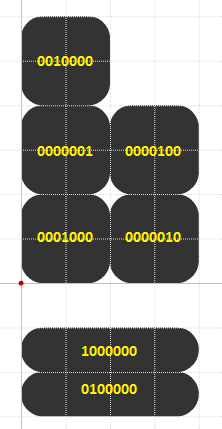
McRasky
Sort of a conceptual one - a futuristic MICR system, based on ASCII. Each letter is built of six "bits" in a 2x3 grid, with two "bits" in the underline. If a bit is a 1 in the ASCII code, the cell will be filled with four black squares. If the bit is a 0, the cell will contain 0, 1, or 2 black squares. No cell contains 3 black squares.
This is the bit map for each character.
Very cool.
The c could be shorter, though.
I love the puzzly nature of this font! I think the W contains a 3-square cell, though.
Could you also make a font like this based on braille?
You're right about the W - fixed now.
Braille would be interesting. I could see it being made of large circles connected by macaroni pieces, almost like body piercing jewellery. I may try it :-)
The 'm' looks like an 'n'. Was that intentional?
@Tsa Possibly?